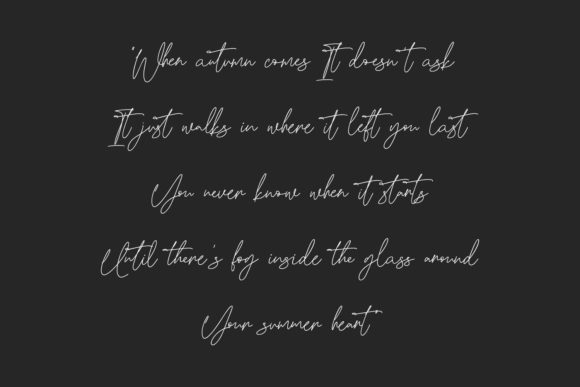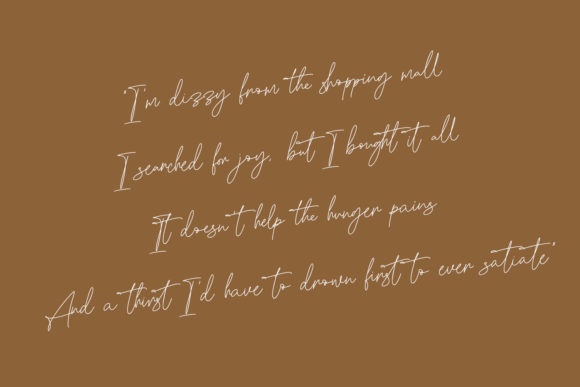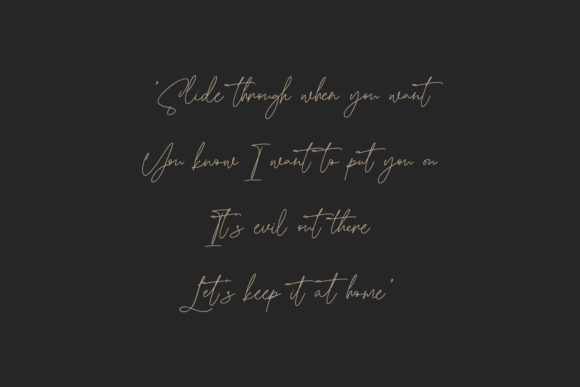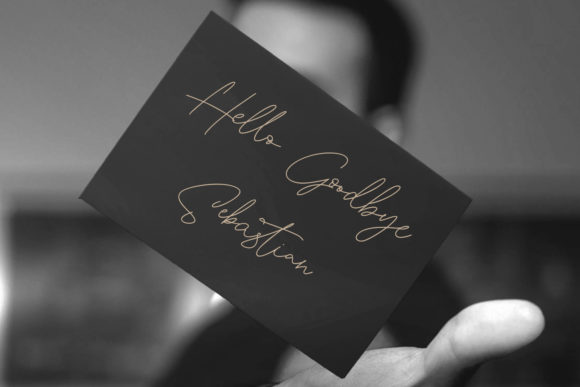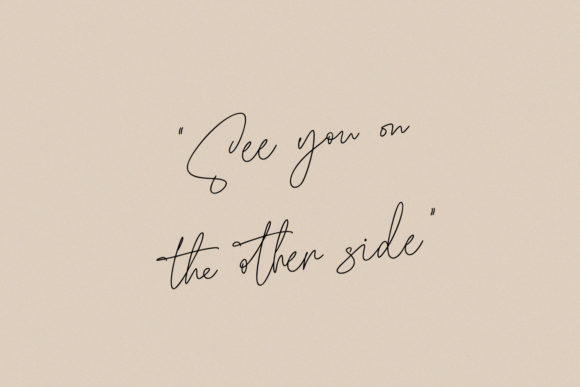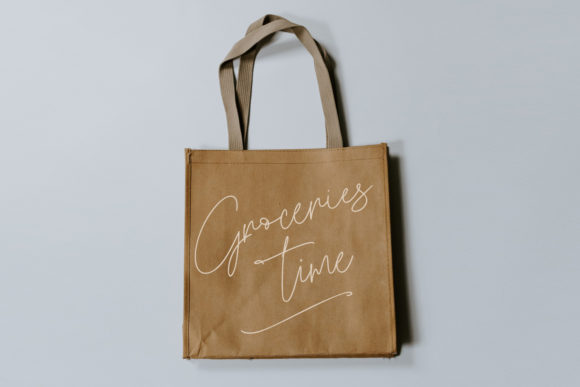
Unleash Your Creativity with the Perfect Font
Have you ever sat staring at a blank page, waiting for the perfect font to come to you? The one that perfectly captures the essence of your design and brings it to life? For designers, finding that elusive font can be a game-changer.
Enter the Blowfisher Signature Font, a thin and casual handwritten font that’s as natural and unique as a handwritten signature. Its versatility makes it an ideal choice for a wide range of designs, from digital art to print materials. Whether you’re a seasoned pro or just starting out, this font is sure to inspire your creativity and help you create something truly special. With the Blowfisher Signature Font, the possibilities are endless.
Discover the perfect font to bring your designs to life and unleash your imagination with the Blowfisher Signature Font.
Blowfisher Signature Font Key Features
- Unique Hand-Drawn Style: The Blowfisher Signature Font features a distinctive hand-drawn style, with intricate details and subtle imperfections that give it a personal, human touch.
- High-Quality Vectors: The font is built with high-quality vectors, ensuring crisp and clear rendering on various devices and screens.
- Wide Character Set: The Blowfisher Signature Font includes a wide range of characters, including uppercase and lowercase letters, numbers, punctuation marks, and special characters.
Blowfisher Signature Font Review
Overall, I was excited to dive into the Blowfisher Signature Font, and it didn’t disappoint. Here’s a rundown of what I loved and what I found lacking.
- Unique Hand-Drawn Style: The Blowfisher Signature Font has a distinctive, hand-drawn feel that sets it apart from other fonts.
- High-Quality Vectors: The font’s vectors are crisp and well-designed, making it suitable for a wide range of applications.
- Great for Logos and Titles: The font’s elegance and sophistication make it perfect for logos, titles, and other high-end design projects.
- Limited Character Set: The font’s character set is limited, which may not be ideal for projects that require a wide range of characters.
- May Not Be Suitable for Body Text: While the font is great for titles and logos, it may not be the best choice for body text due to its unique style.
While the Blowfisher Signature Font has some limitations, its unique style and high-quality vectors make it a great addition to any designer’s toolkit. If you’re looking for a font to elevate your high-end design projects, this one is definitely worth considering.
For the best results, use the Blowfisher Signature Font for titles, headings, and emphasis in designs and documents. It’s ideal for creating a unique and professional look.
Alternatives to Blowfisher Signature Font for Designers
Pacifico is a beautiful, elegant script font perfect for creating a sophisticated and luxurious feel. It’s ideal for use in branding, invitations, and other materials where a touch of class is required. Compared to Blowfisher Signature Font, Pacifico has a more refined and delicate look, making it suitable for applications where a softer, more feminine touch is needed.
Carolyna Pro is a modern script font designed for use in a variety of applications, from branding and advertising to editorial and packaging. It’s known for its fluid, cursive lines and elegant feel, making it an excellent alternative to Blowfisher Signature Font. While both fonts share a similar style, Carolyna Pro has a more contemporary and edgy feel, making it suitable for modern and trendy designs.